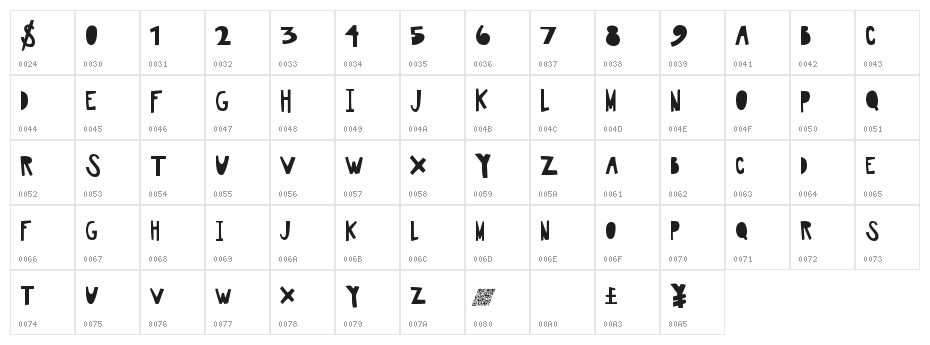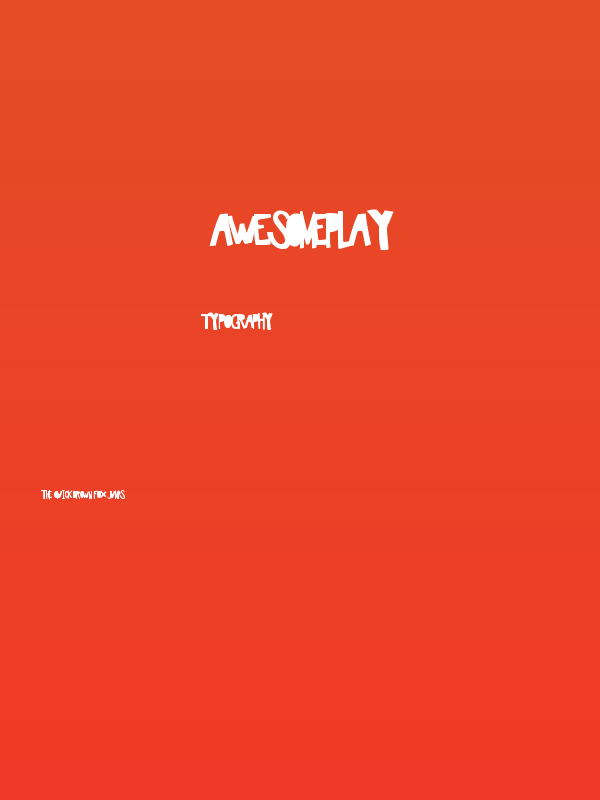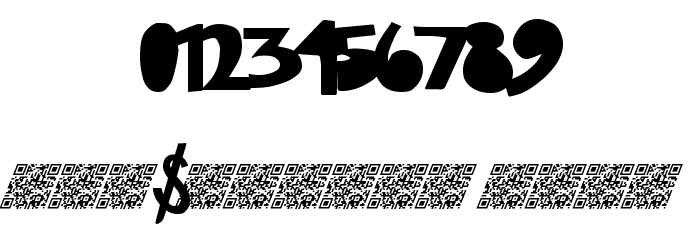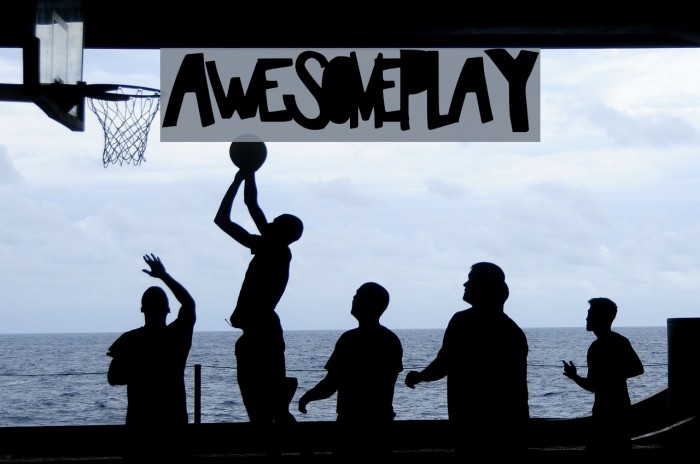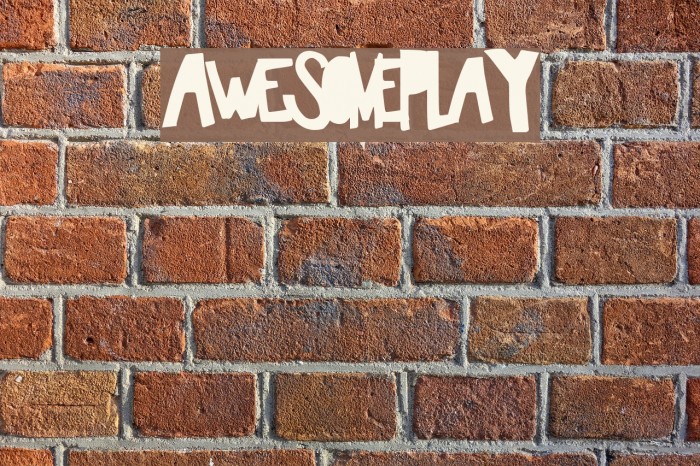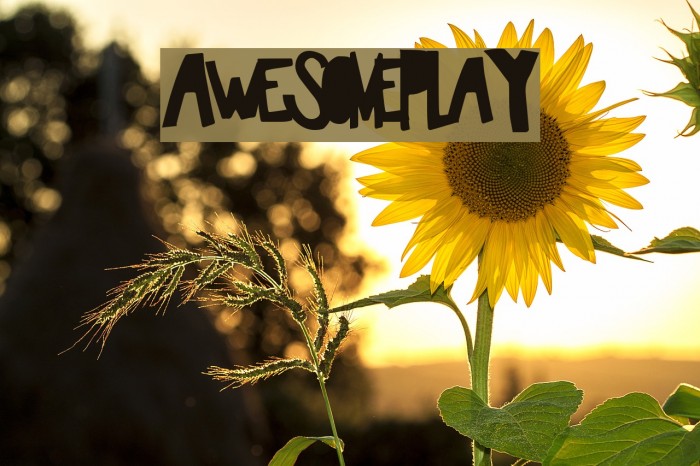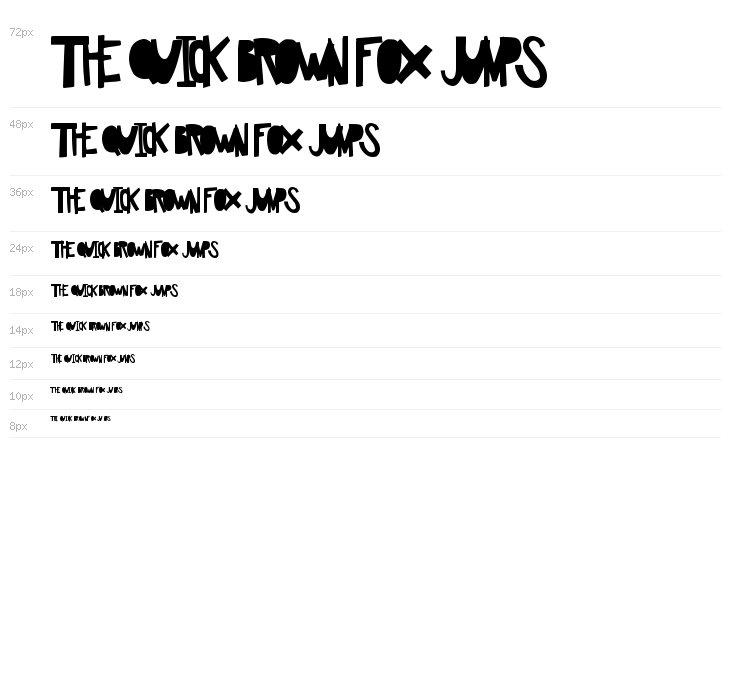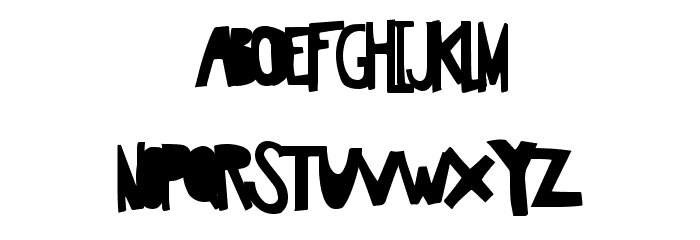
AwesomePlay Font
AwesomePlay Description
This font features a bold and playful design with exaggerated, irregular shapes that give it a dynamic and energetic feel. The characters are wide and have a cartoonish style, making them stand out with a strong visual presence. The uppercase and lowercase letters maintain a consistent style, with the uppercase being more prominent. Numbers and special characters follow the same playful aesthetic, ensuring a cohesive look across all elements. The font's unique style makes it suitable for creative and informal projects.
| Overall Style | Playful, Cartoonish |
| Proposed Projects | Ideal for children's books, comic strips, playful branding, and eye-catching posters. |